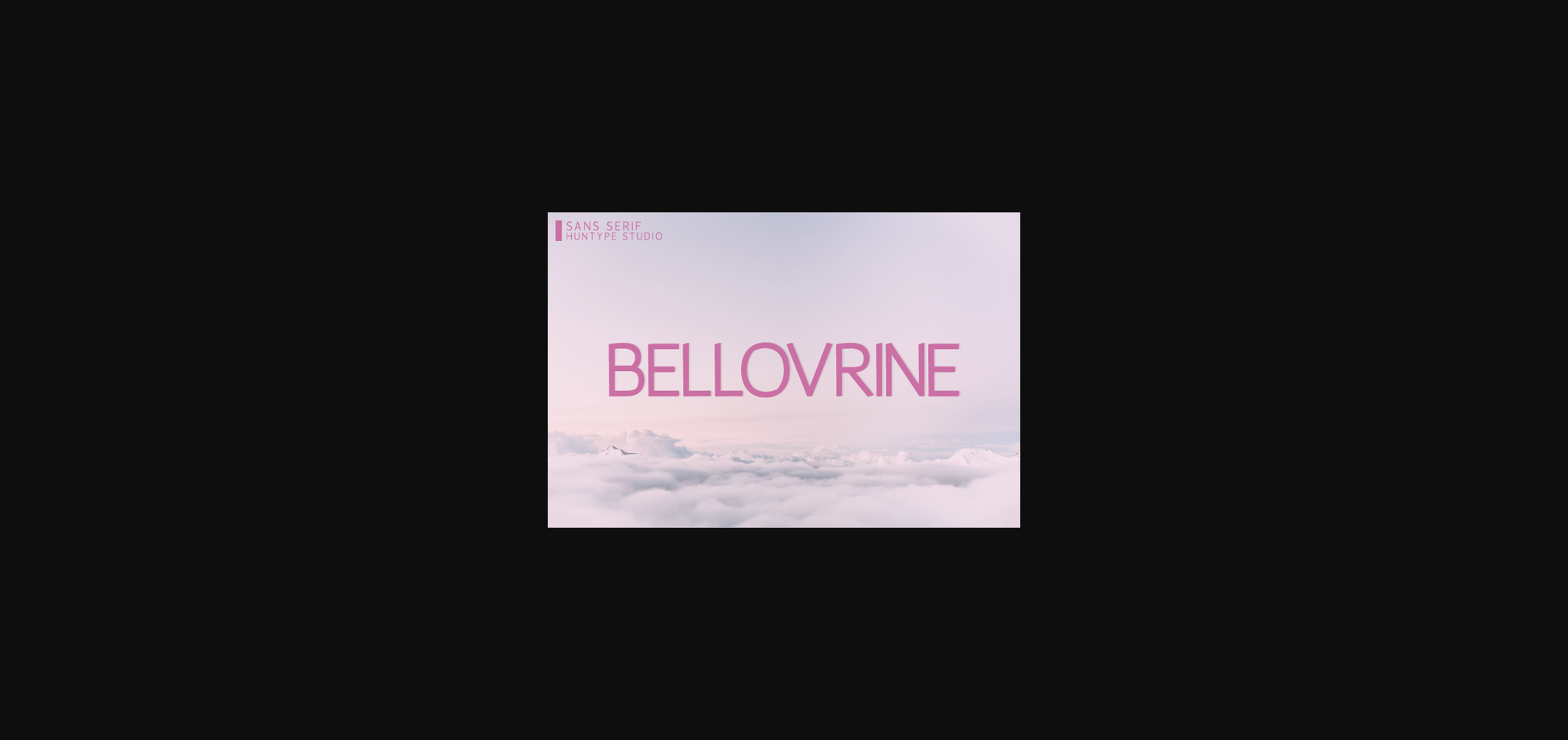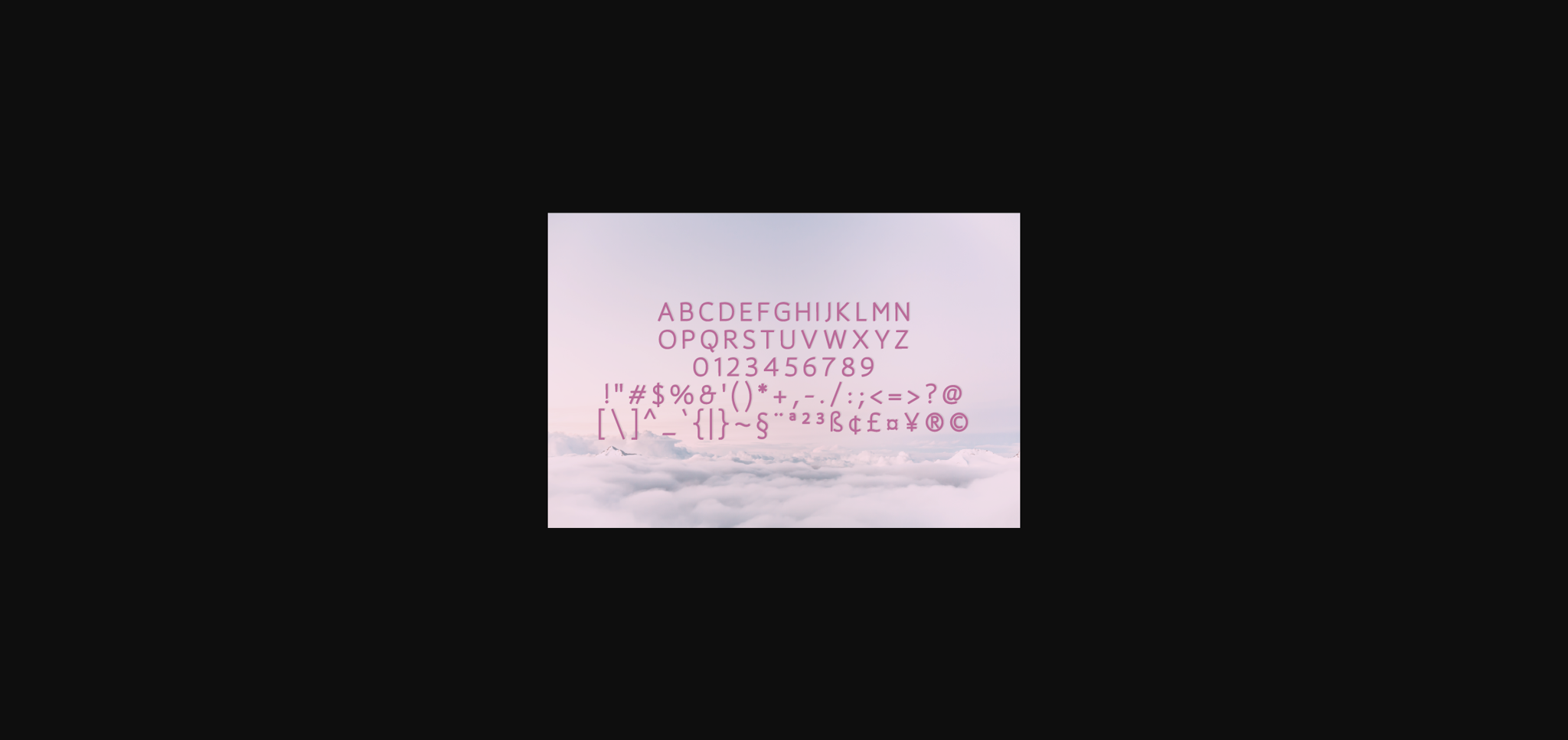
Bellovrine Font
About Bellovrine Font
Bellovrine is a smooth sans serif font. It will complement any design need perfectly with its perfectly balanced mix of the smooth and sharp!